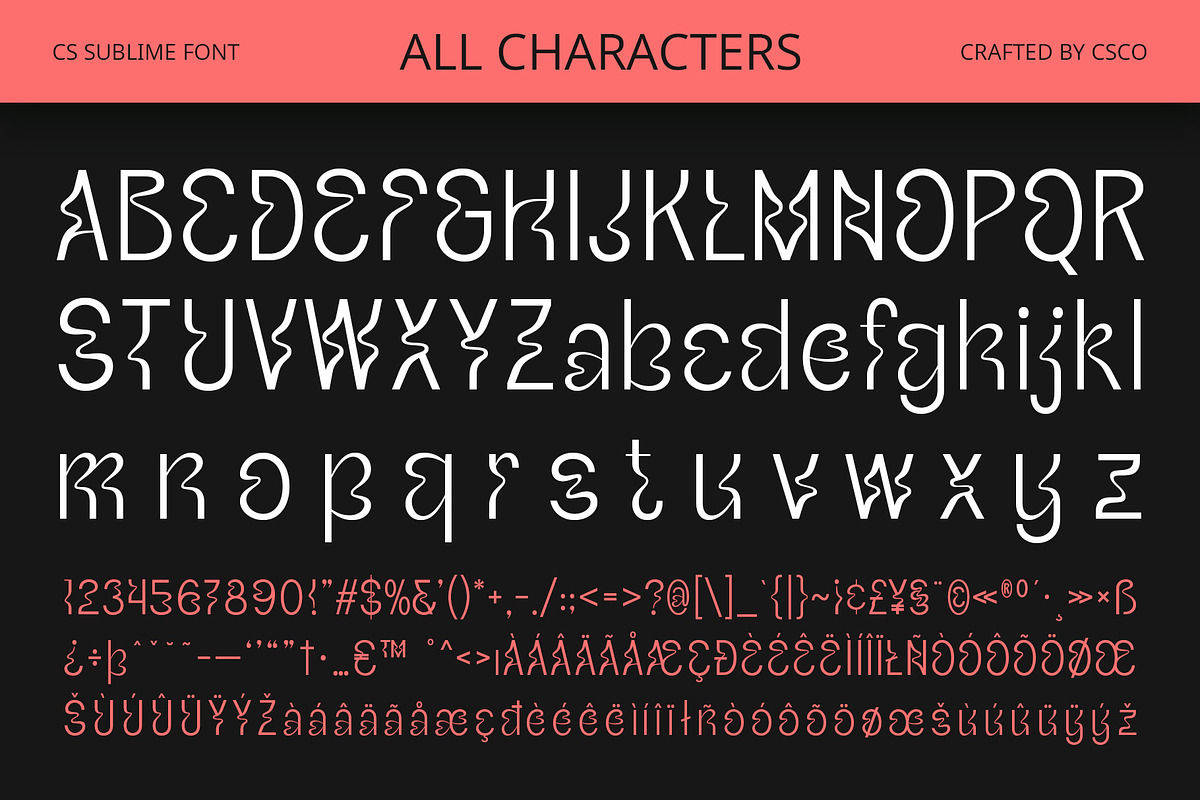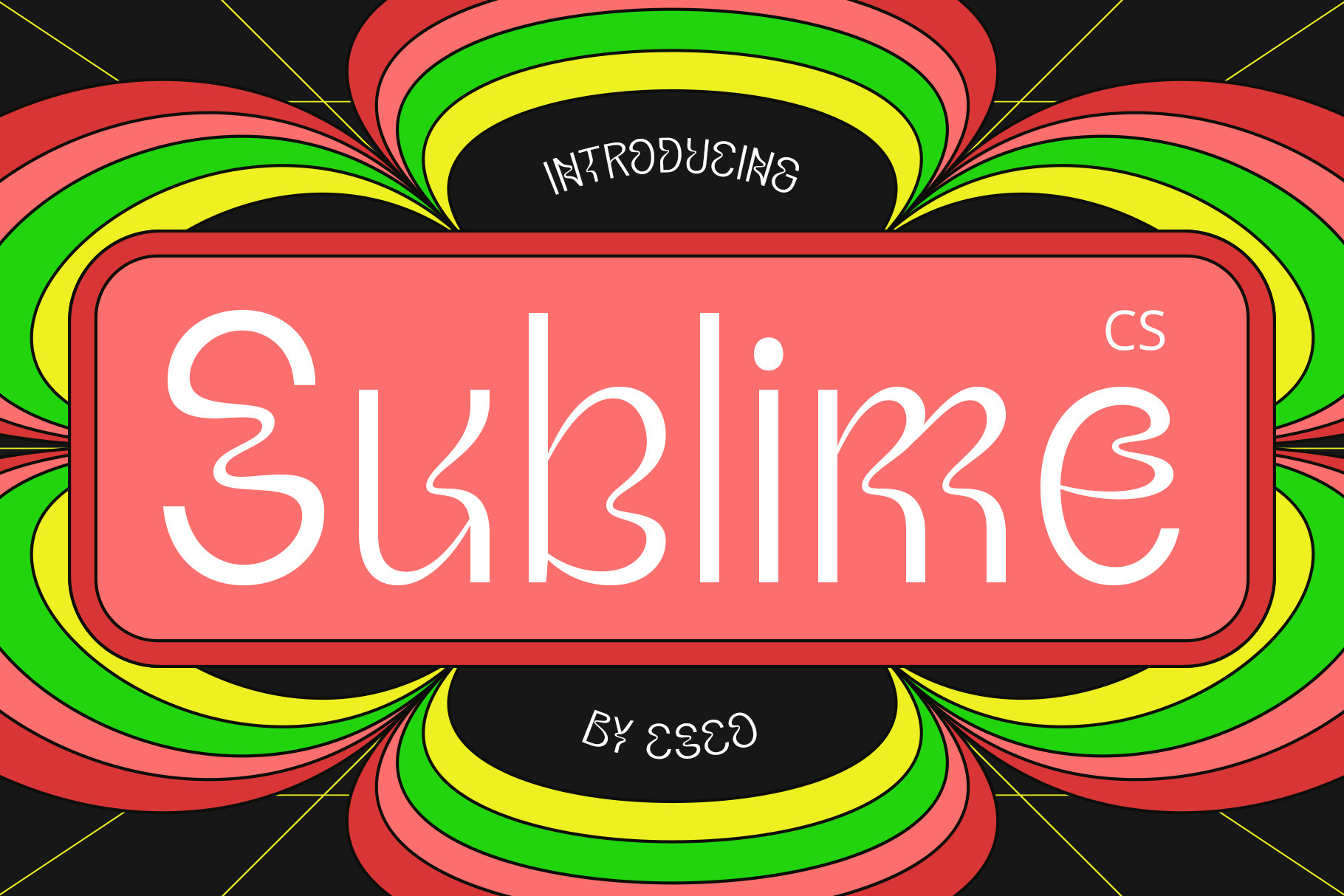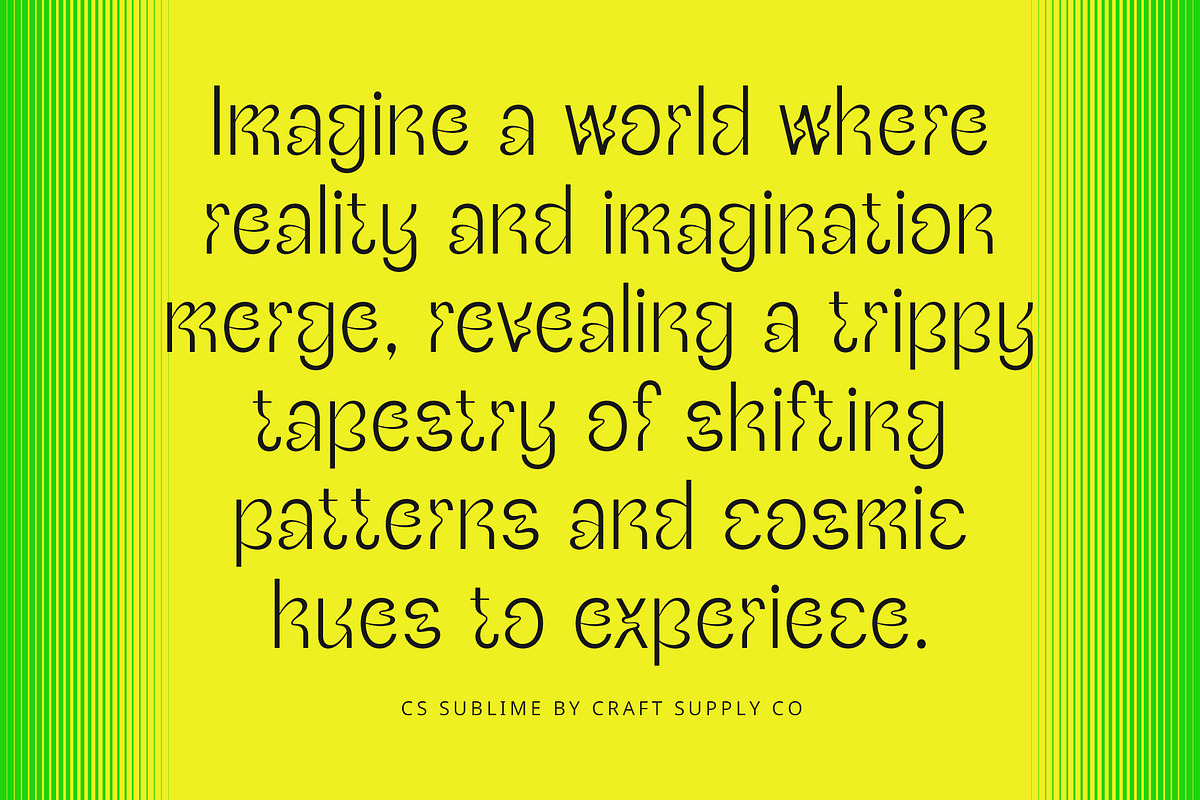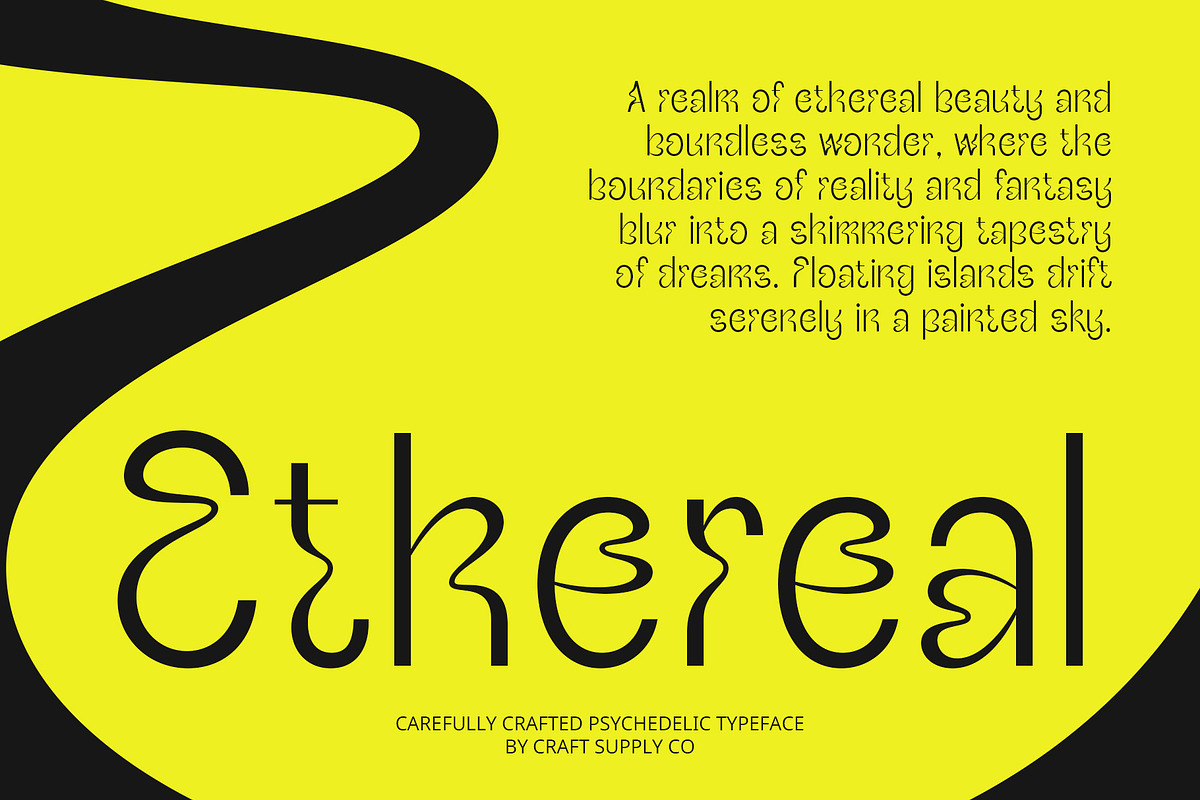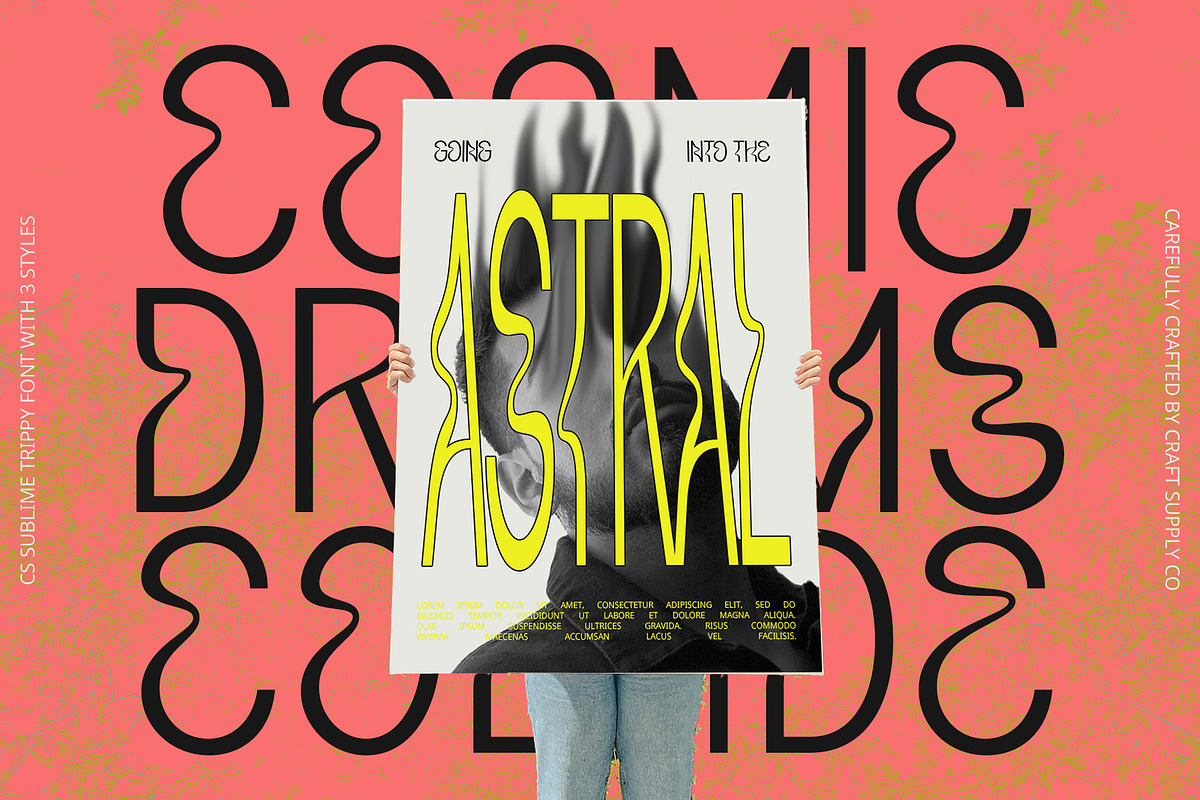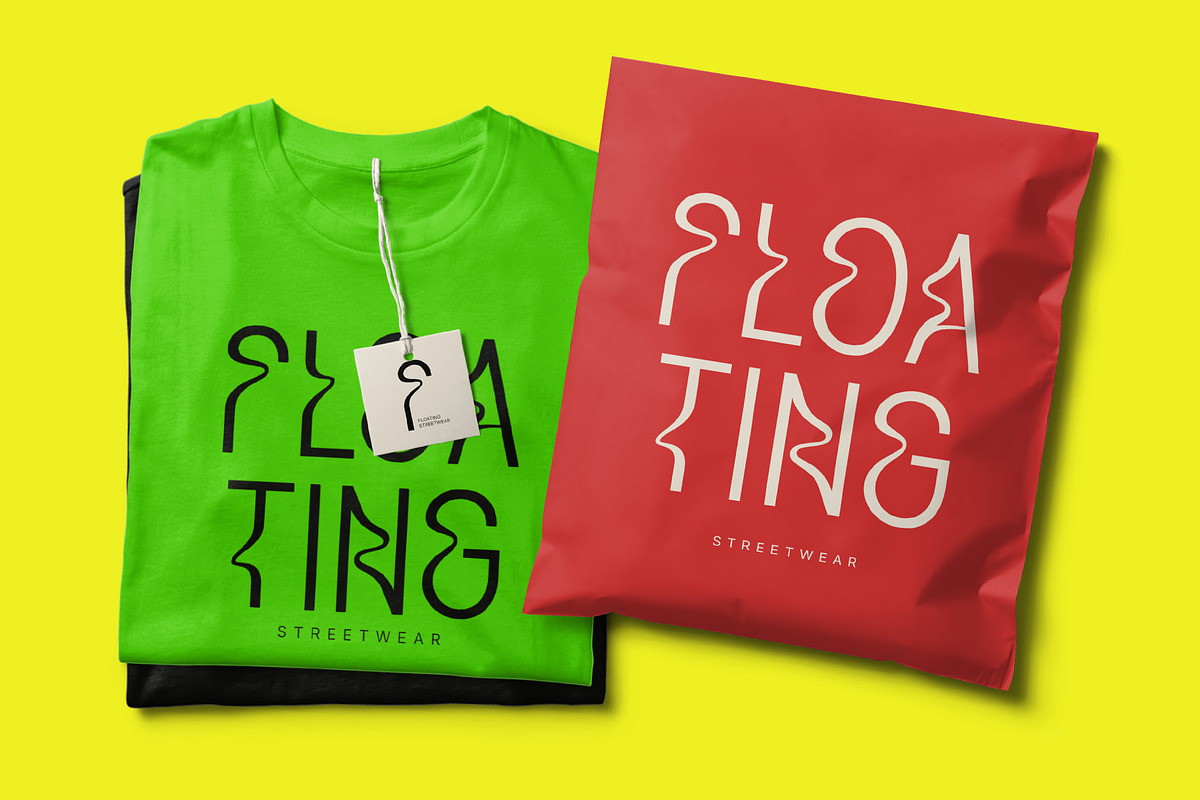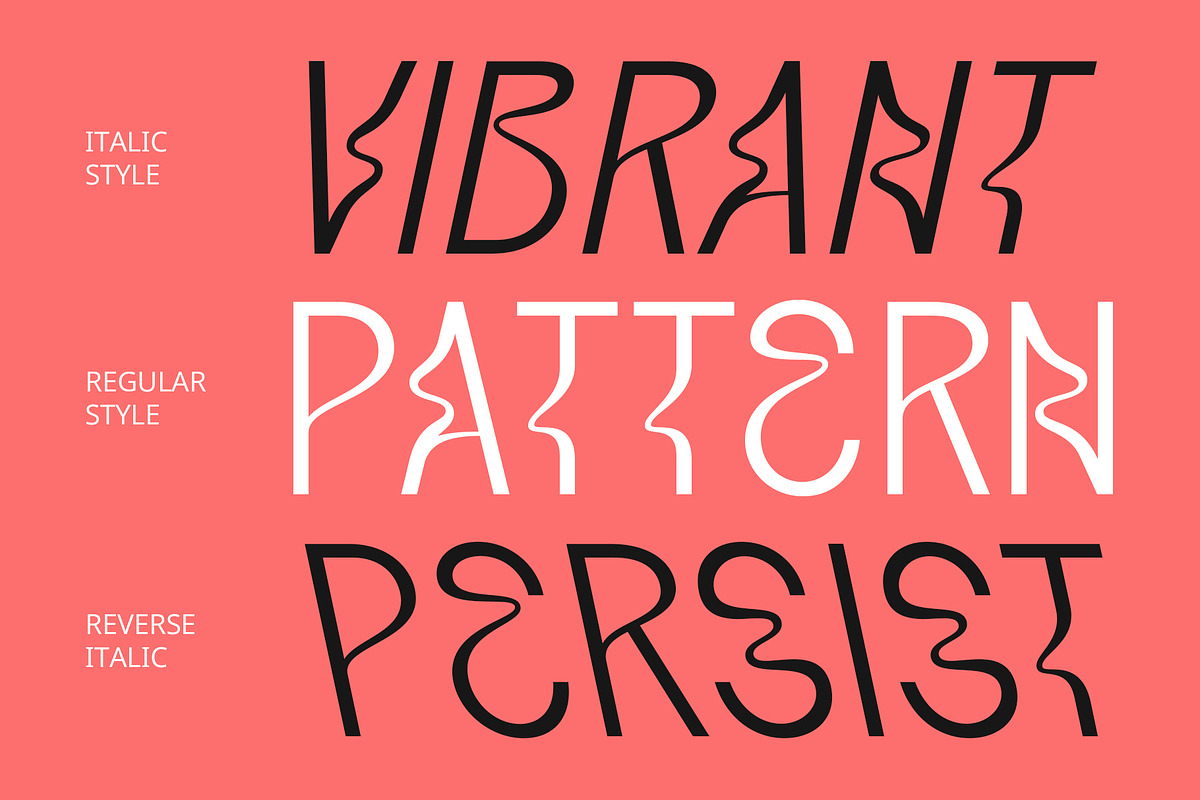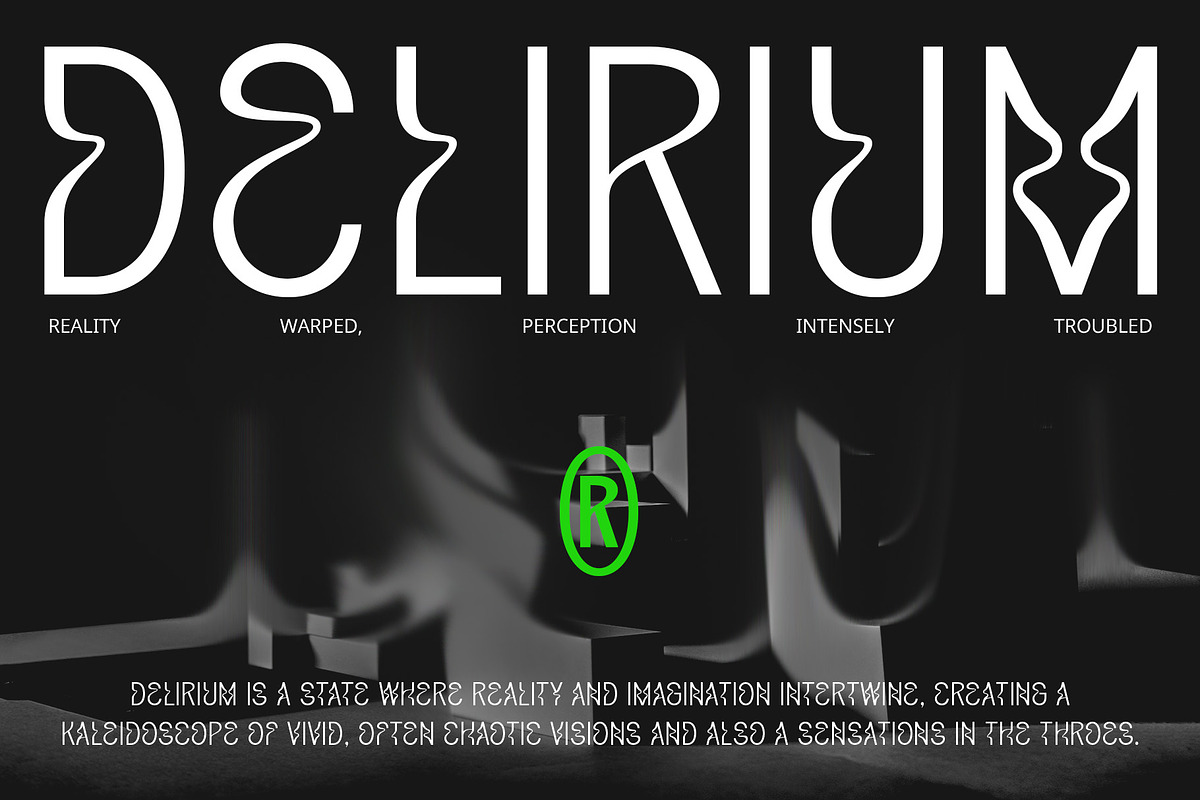
CS Sublime – Trippy Font
CS Sublime – Trippy Font: Embrace the Vibe of Visual Delight
Modern Display with Psychedelic Shapes CS Sublime is a modern display font characterized by trippy and psychedelic shapes that create a funky, cheerful impression. Its dynamic design features curvy and wavy forms, making it a vibrant choice for various creative applications.
Colorful and Engaging Design With its eye-catching visual elements, CS Sublime brings a lively energy to any project. The colorful aesthetic enhances its playful nature, making it perfect for music posters, event promotions, and products that aim to stand out with flair.
Unique Characters for Strong Visual Appeal Each character in CS Sublime conveys a fun and energetic vibe, ensuring your designs grab attention. Whether you’re creating an exciting event flyer or a striking product label, this font delivers the unique touch needed to captivate your audience.
Versatile for Creative Projects CS Sublime’s versatility makes it ideal for a wide range of creative projects. Its bold, dynamic design seamlessly integrates into anything from album covers to marketing materials, ensuring your message is delivered with an unforgettable visual impact.